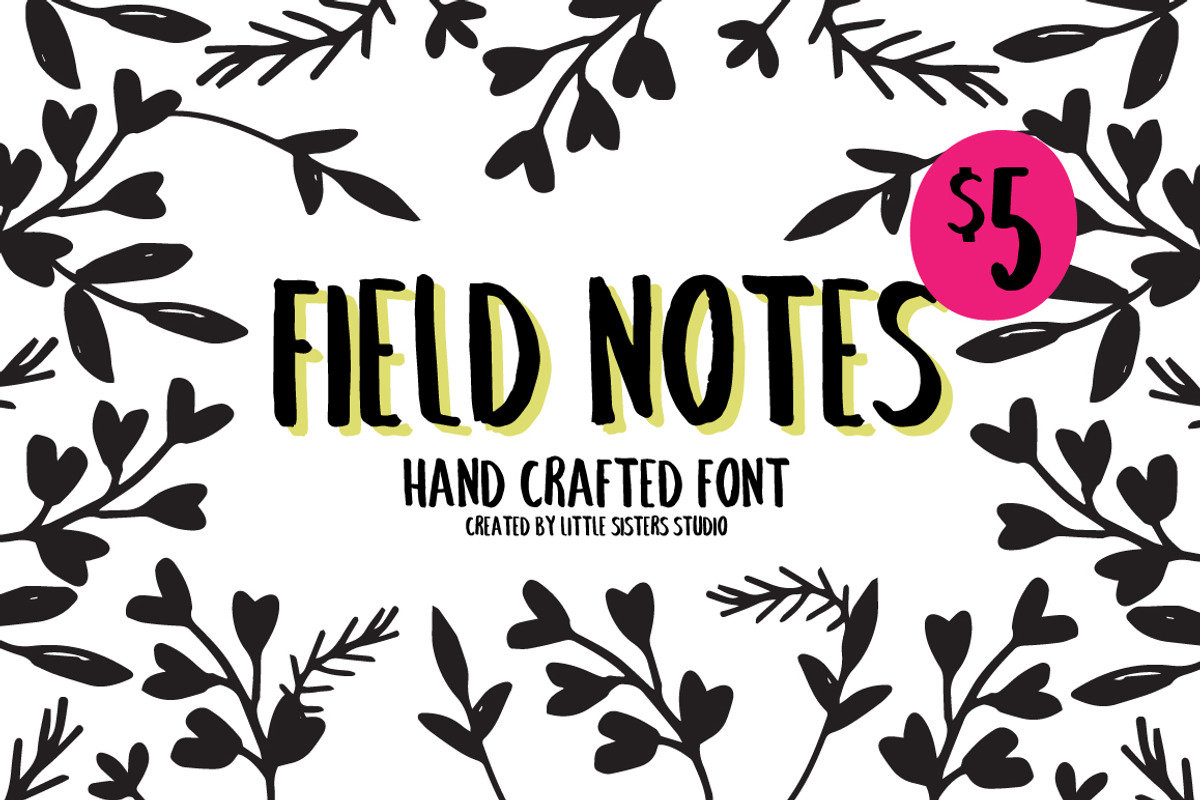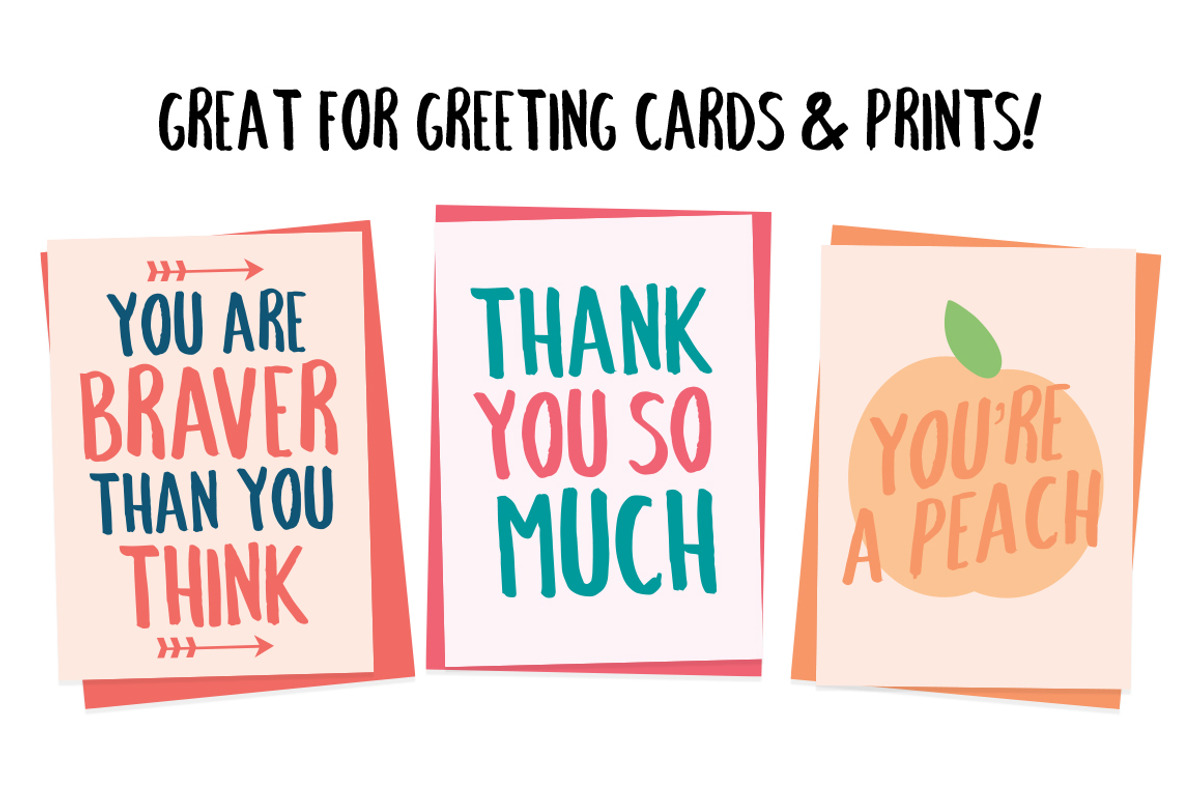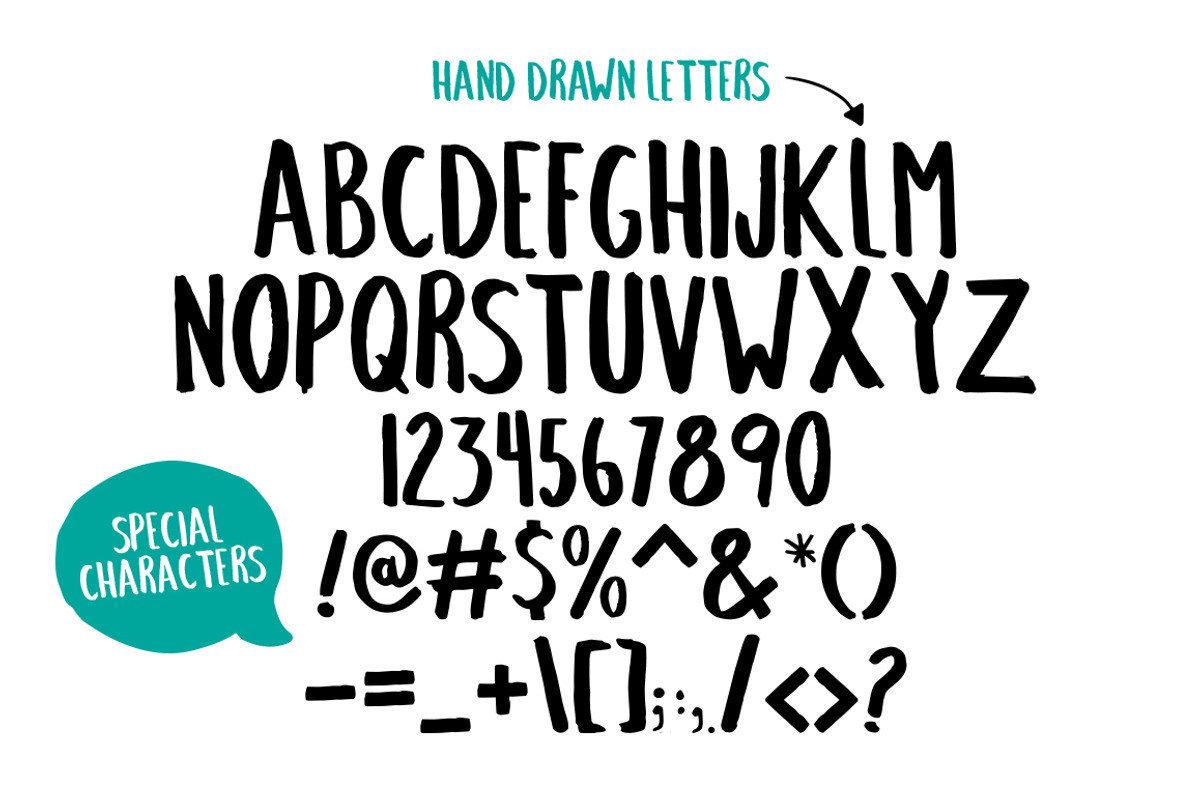
$5 Field Notes HandCrafted Font
$5 Field Notes HandCrafted Font by Little Sisters Studio is a font selected for branding, posters, packaging, typography.
- Field Notes Hand Lettered Sans-Serif
$5 Field Notes HandCrafted Font by Little Sisters Studio fits naturally into Branding, posters, packaging, typography.